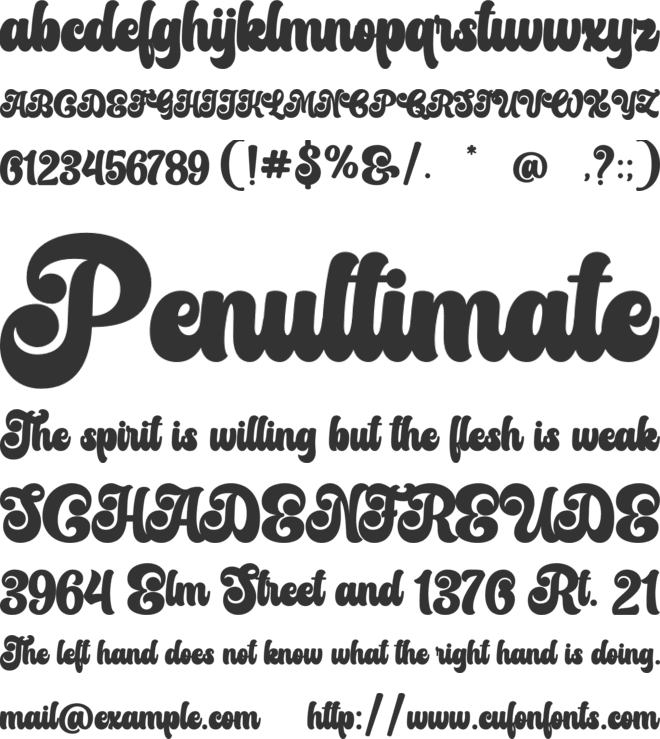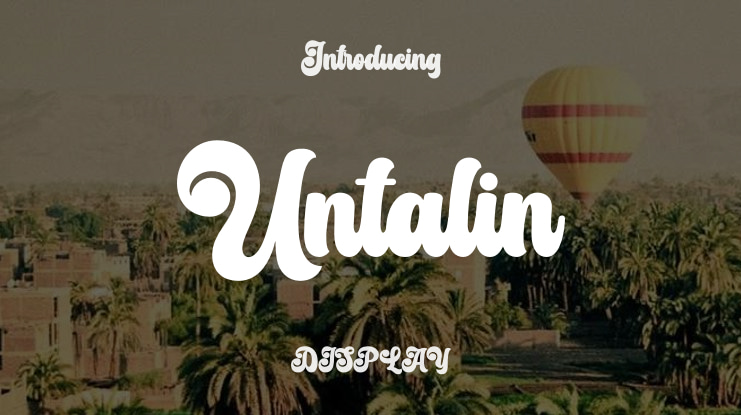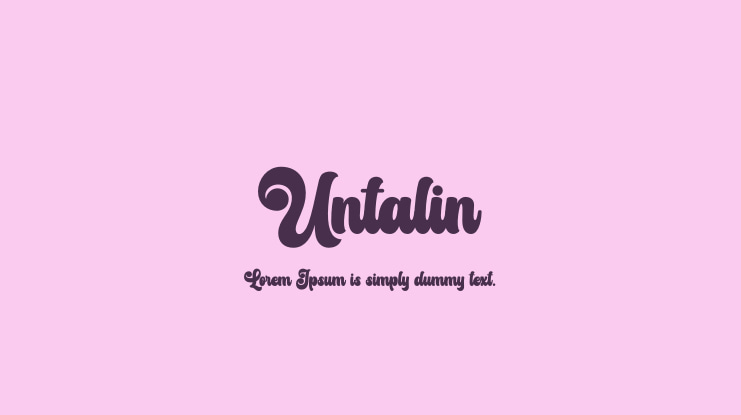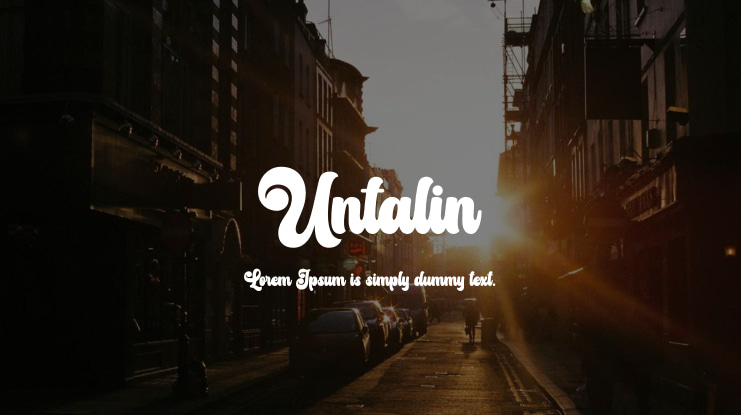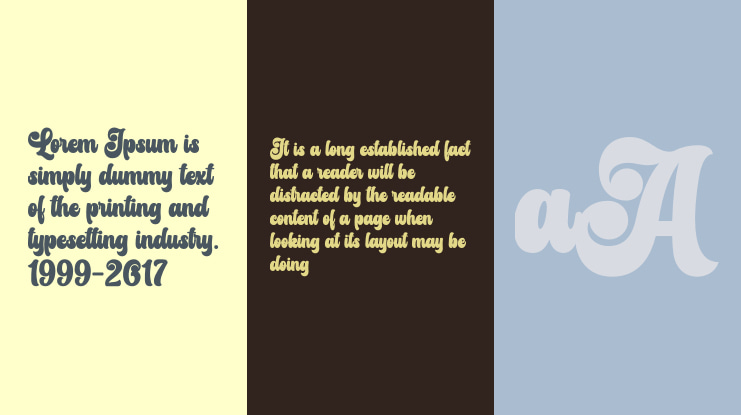
Untalin Font
Untalin is a vintage retro font that draws inspiration from typography and lettering styles of the 70s and 80s, infused with a bold and impactful touch. Please note that this demo font is for personal use only. Donations are greatly appreciated. To acquire the full version and commercial license, you can make a purchase via our PayPal account: https://PayPal.Me/payrgbstudioLink. For extended or corporate licenses, please contact us at . Happy designing! Thank you. Regards, RGB Studio.